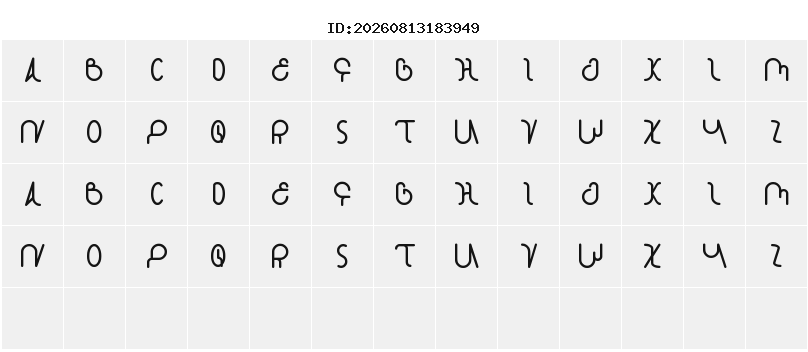
• Font Name: star constellation
About star constellation.ttf
star constellation.ttf is a modern, elegant sans-serif font designed for ultimate readability and visual harmony. Perfect for branding, headlines, web design, and print materials.